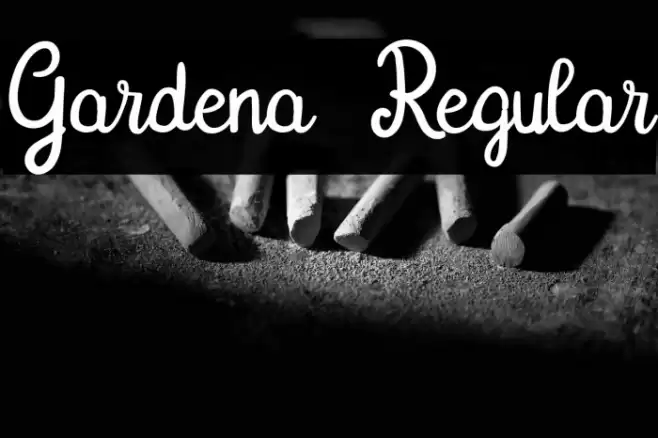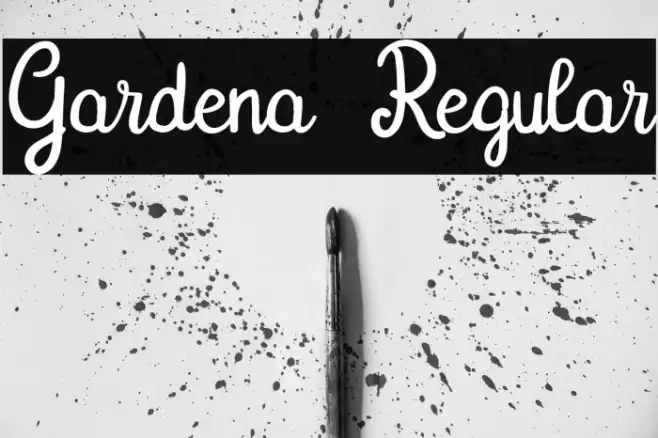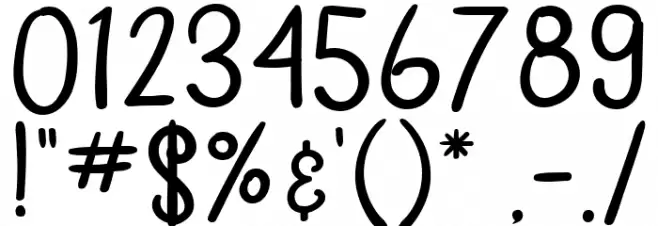
Gardena Regular Font
Gardena Regular Description
This font features a playful and whimsical script style with a handwritten appearance. The uppercase letters are characterized by their looping and flowing strokes, giving them a lively and dynamic feel. The lowercase letters maintain a consistent style, with smooth curves and a slightly irregular baseline that enhances the handwritten effect. The numerals are bold and clear, maintaining the playful aesthetic. Special characters are designed to complement the overall style, ensuring a cohesive look across all text. This font is ideal for projects that require a personal touch or a creative flair.
A playful, handwritten script font with dynamic loops and smooth curves from Regular fonts.
- Proposed Projects: Greeting cards, invitations, playful branding, children's books, and creative posters.
- Overall Style: Playful, Whimsical
- Use Case: Headlines, Logos, Creative projects